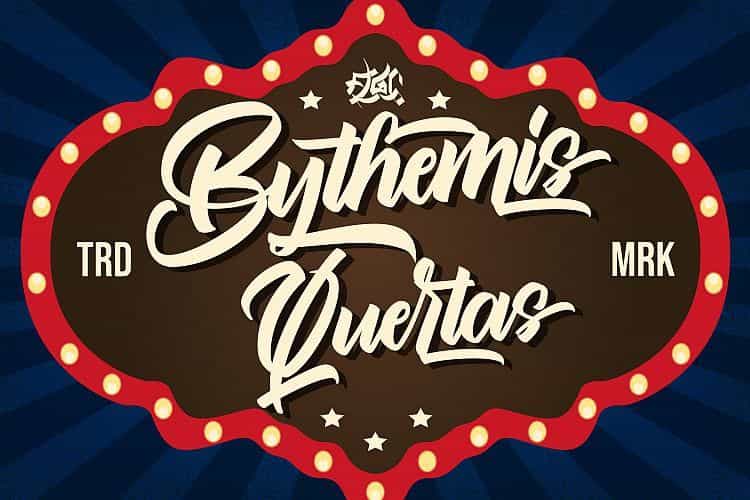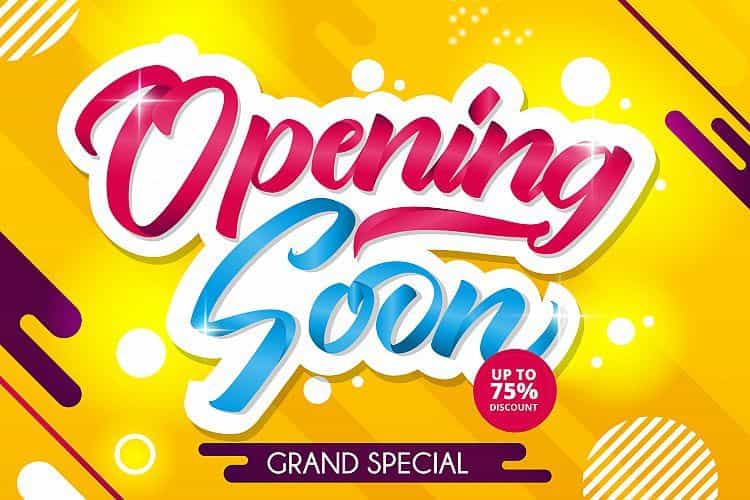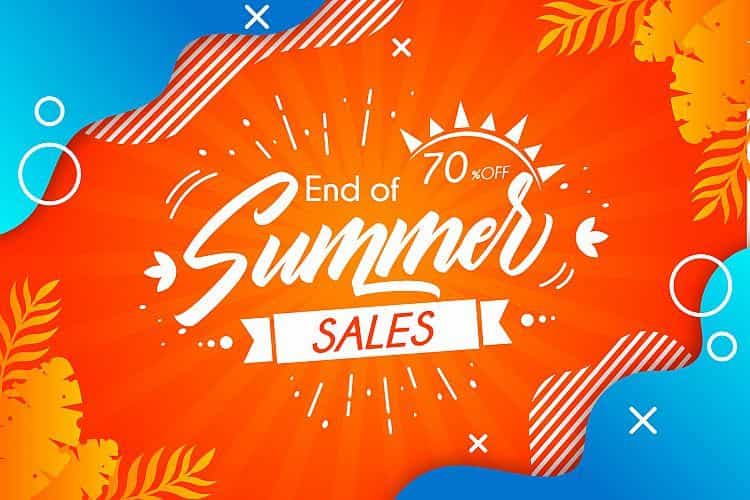
Introducing Bythemis Quertas Font. A new freshly painted, inviting, and colourful font of bold script! an assortment of tasteful handwritten script along with beautiful swash. Stand out with this clear inspiration and design your idea in any type of way you desire! It is was created by FallenGraphic Std. This one is a stylish font with a contemporary twist, and the style is deemed perfect for branding as it is brave and crisp like two of the most admired attributes of typography.